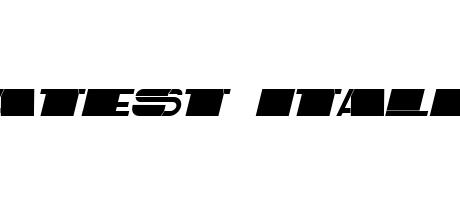
Latest
Latest Italic: A bold, dynamic sans-serif font, Latest Italic exudes speed and energy. Its chunky, slanted characters suggest motion, like a race car blurring past. The slightly irregular letterforms add a touch of raw, hand-crafted grit to its otherwise sleek, modern aesthetic. Perfect for titles and headlines demanding attention.
Vladimir Nikolic